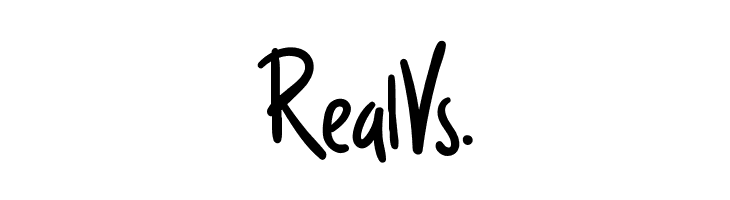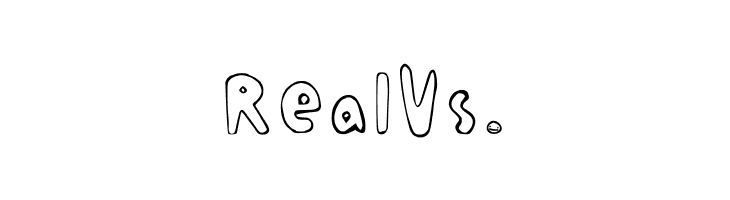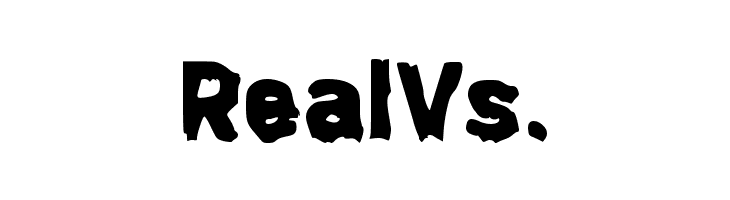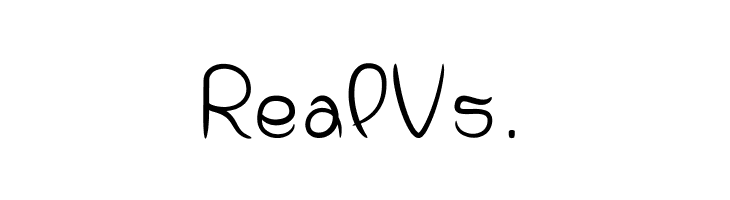
A playful and elegant script font with a handwritten appearance.
A tall, narrow handwritten font with thin strokes and elongated letterforms.
A playful, handwritten font with bold, dynamic strokes and a creative flair.
A bold, playful handwritten font with rounded, irregular characters.
A dot matrix style font with a retro digital display aesthetic.
A bold, handwritten-style font with dynamic, expressive strokes.
A bold, energetic script font with a hand-drawn, brush-like texture.
A bold, brush-style font with high contrast and dynamic strokes.
A bold, dynamic brush script font with expressive, flowing strokes.
A bold, dynamic script font with a 3D extruded effect, perfect for modern designs.
A modern, dot-connected font with a geometric and artistic style.
A playful, dot-based decorative font with a modern flair.
A bold, dot matrix style font with a retro-tech aesthetic.
A bold, condensed dot-based font with a modern and playful style.
A bold, expanded dot-matrix style font with a retro digital display vibe.
A modern, dotted font with a geometric and digital appearance.
A dot matrix style font with a retro digital display aesthetic.
A modern, dotted font with a playful and distinctive style.
A playful, dotted font with a whimsical, hand-drawn style.
A futuristic, geometric outline font with a modern and sleek design.
A playful, handwritten font with a bold and casual style.
A bold, energetic script font with a dynamic, handwritten style.
A playful, modern font with bold, dynamic shapes and artistic flair.
A dynamic, angular font with sharp strokes and a sense of movement.
A bold, jagged font with an energetic, explosive style.
A playful, hand-drawn font with bold, irregular strokes and a whimsical style.
A bold, contour-styled font with a modern and decorative flair.
A bold, serif font with strong, thick strokes and high legibility.